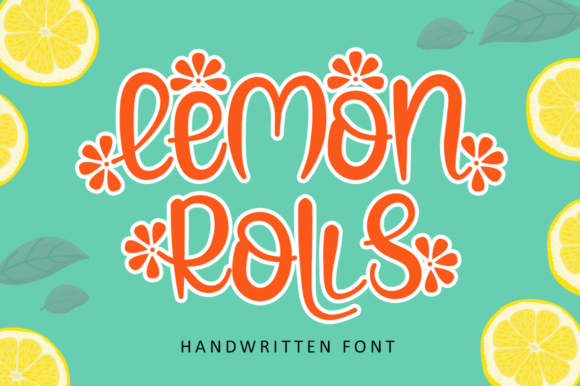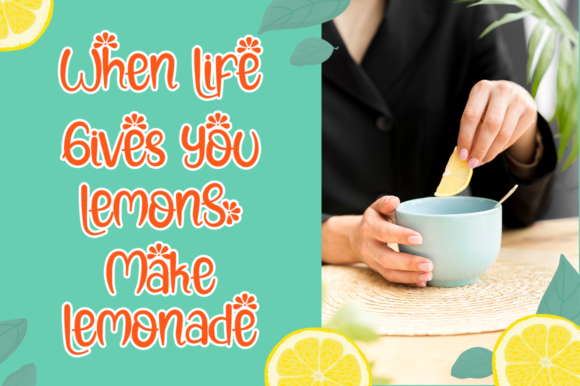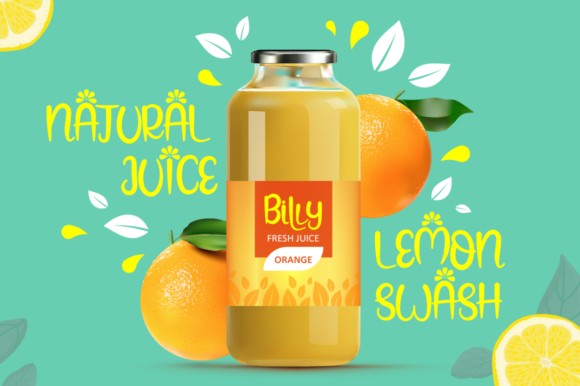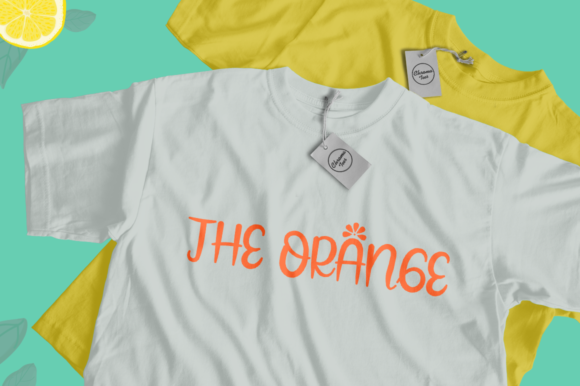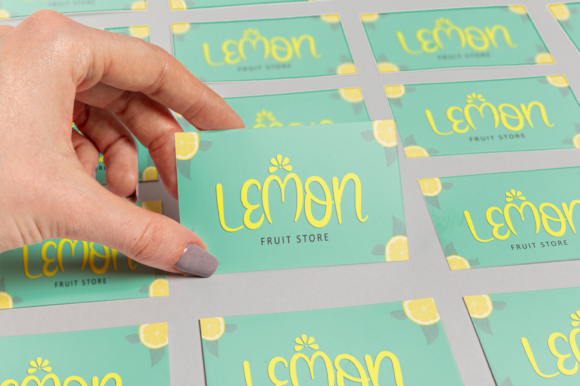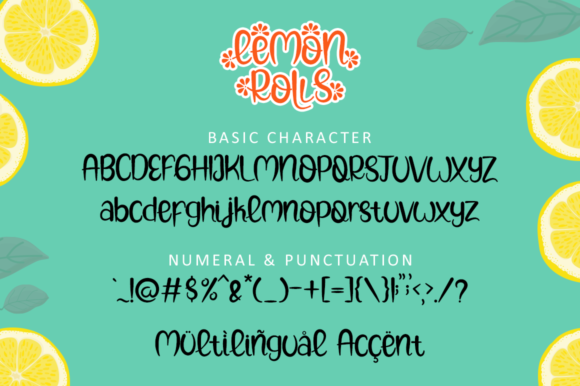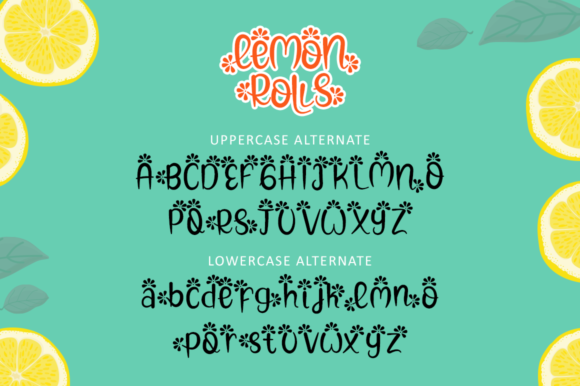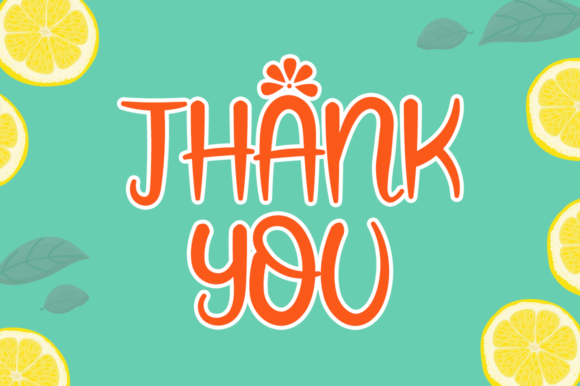
Lemon Rolls Font
About Lemon Rolls Font
Lemon Rolls is a cute and casual handwritten font with an incredibly friendly feel. Whether you’re looking for fonts for Instagram or calligraphy scripts for DIY projects, this font will turn any creative idea into a true piece of art!